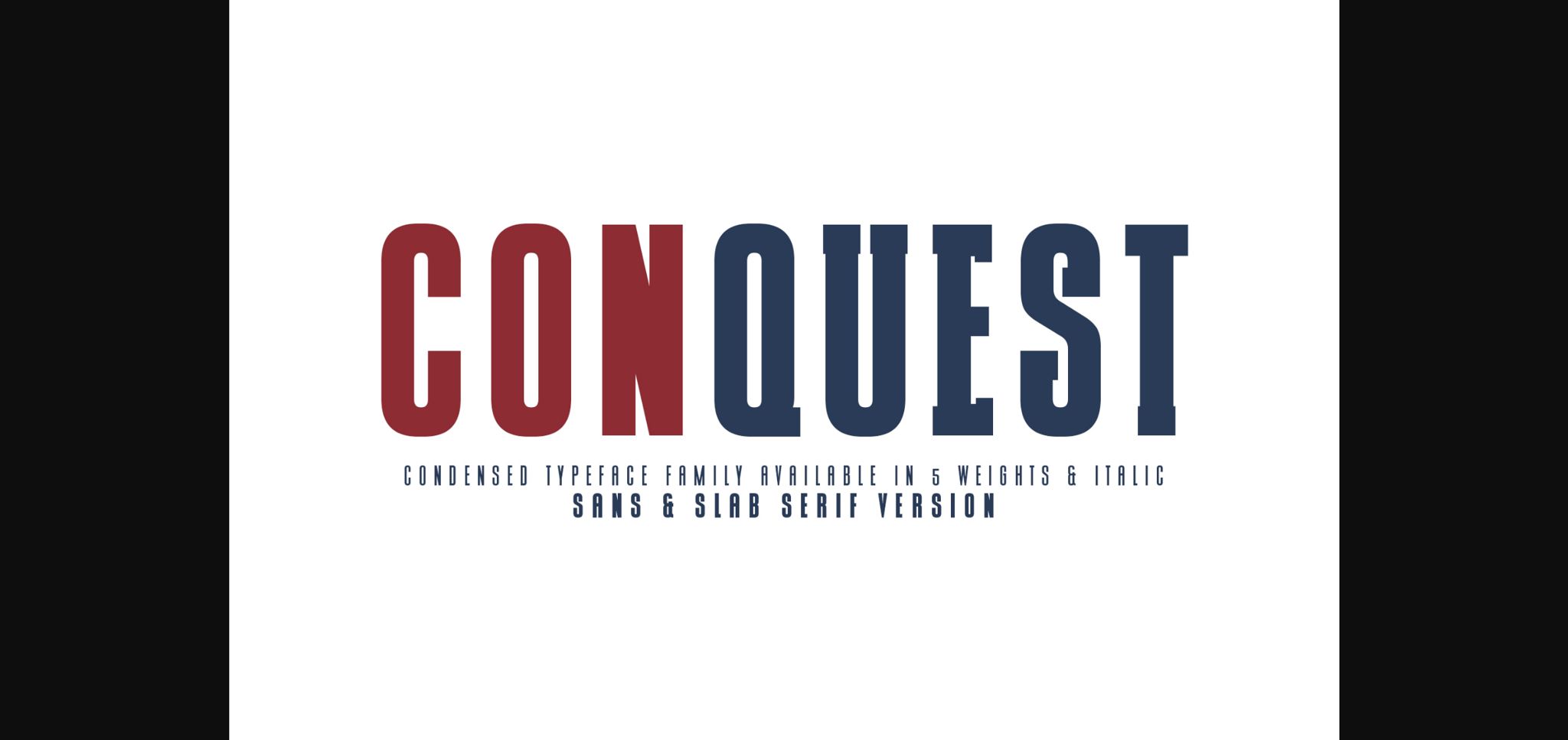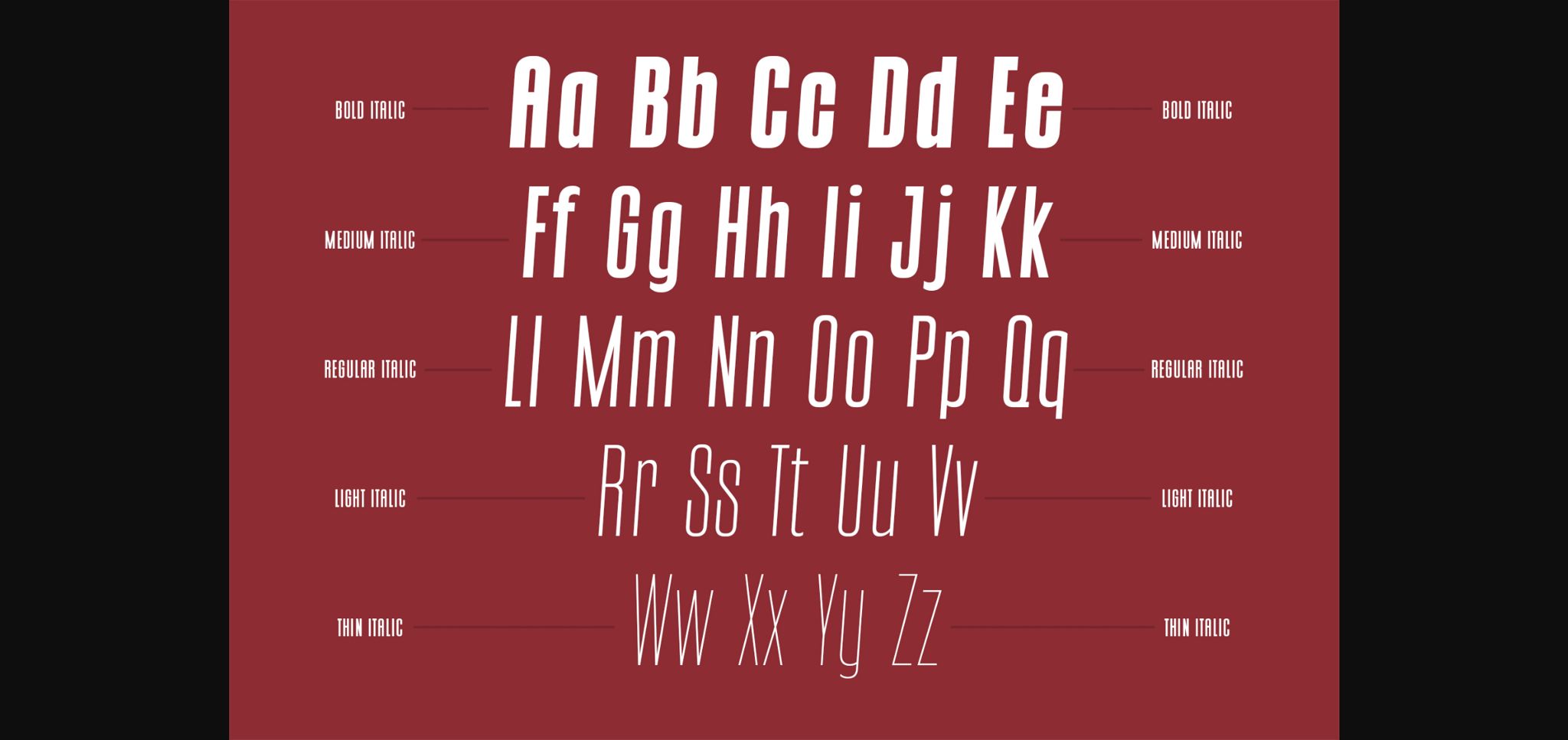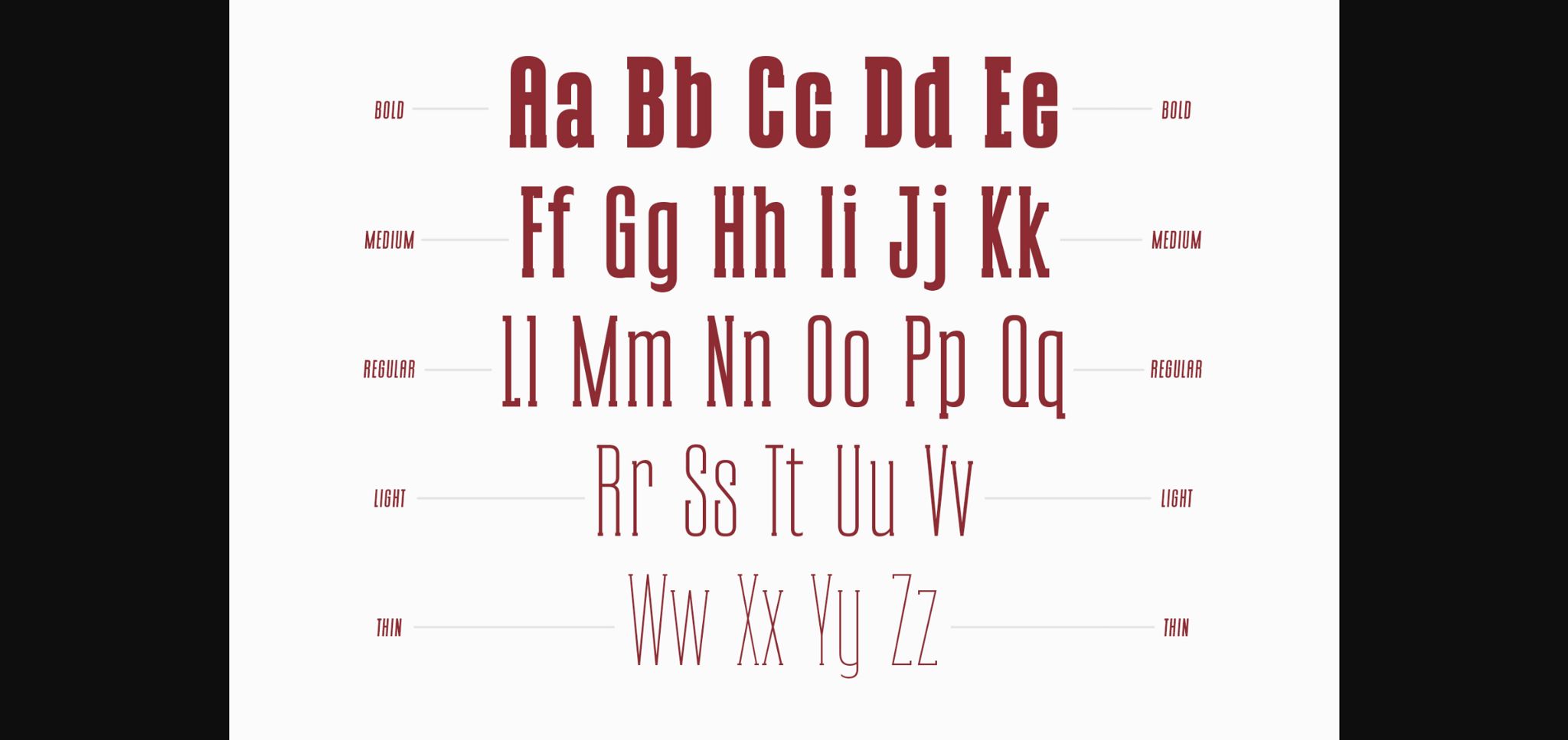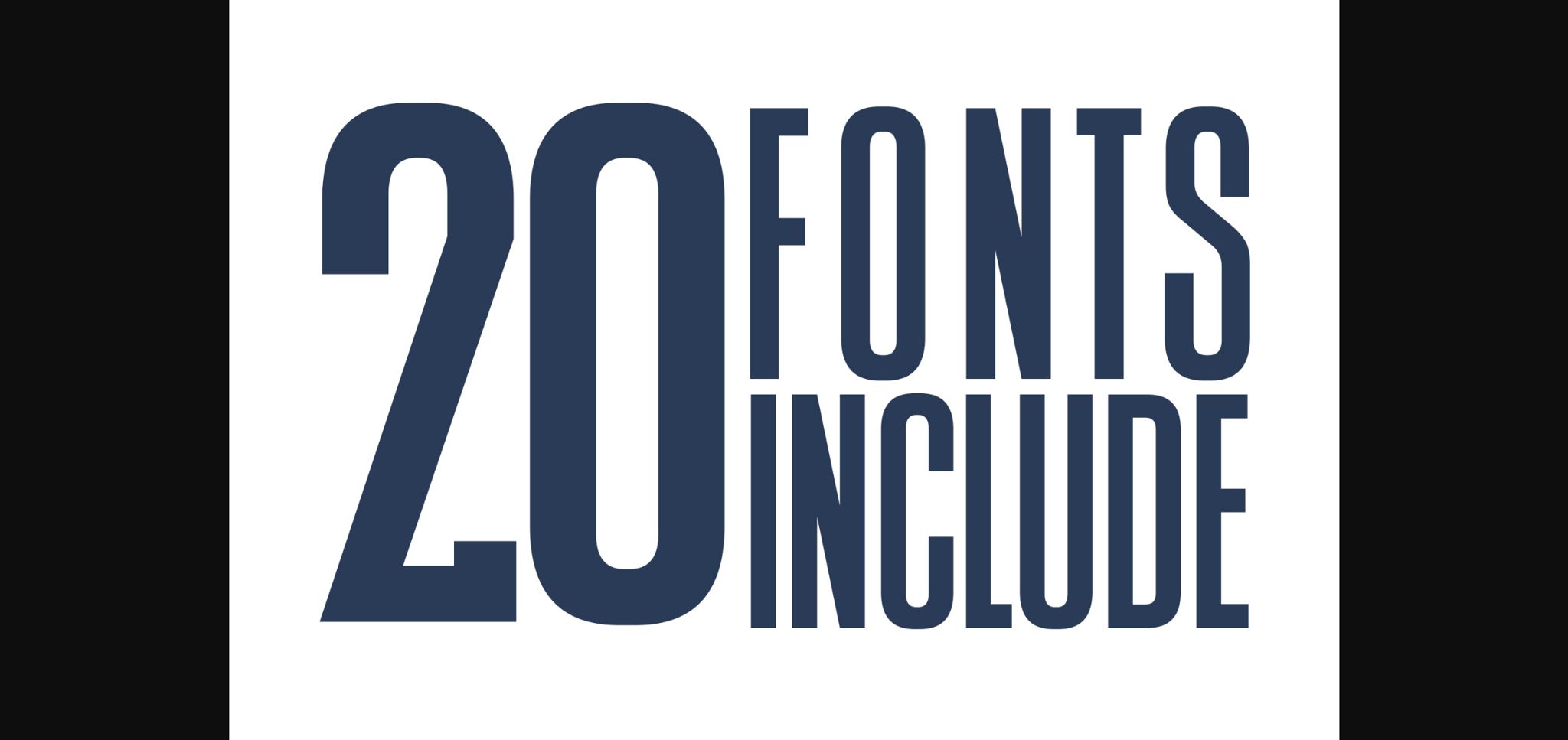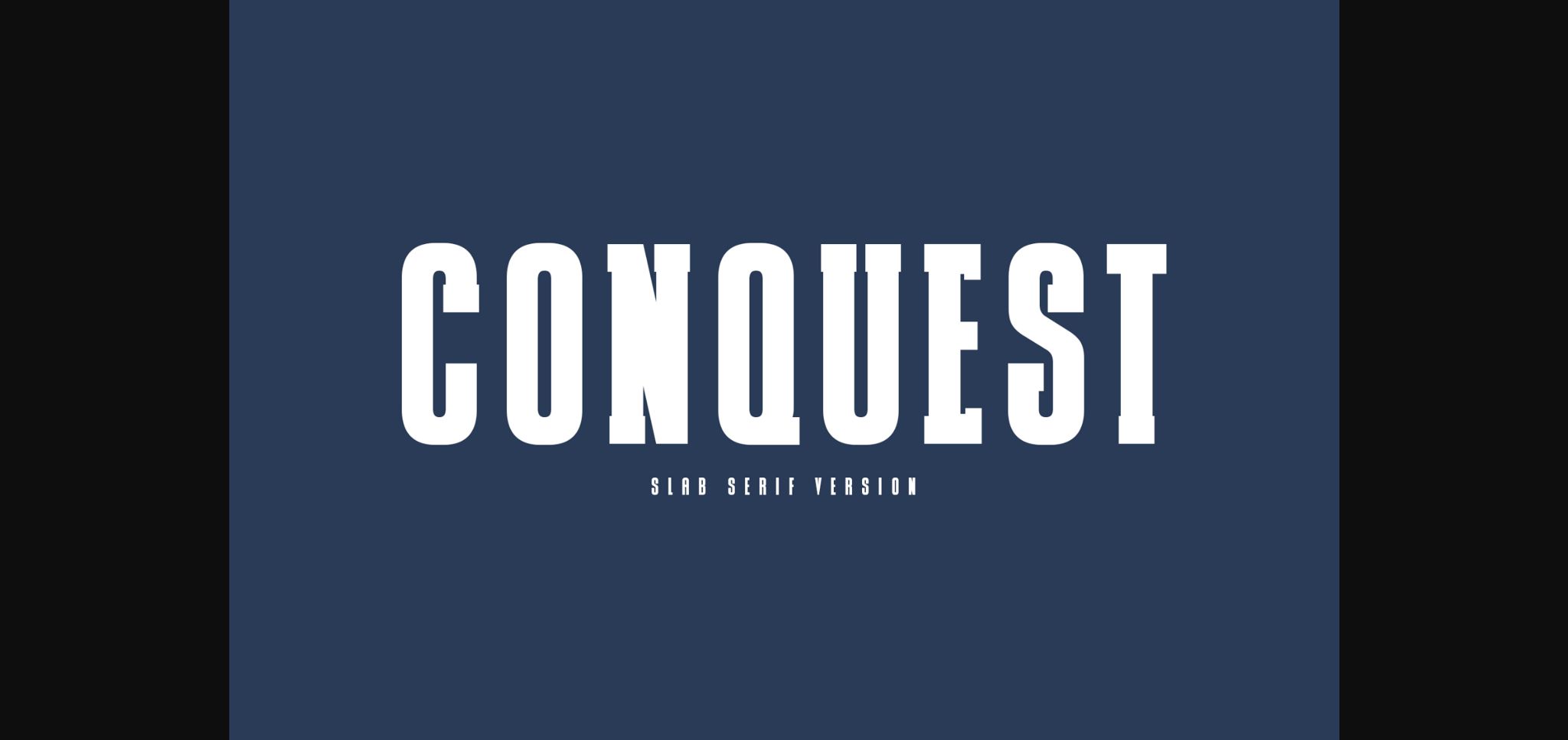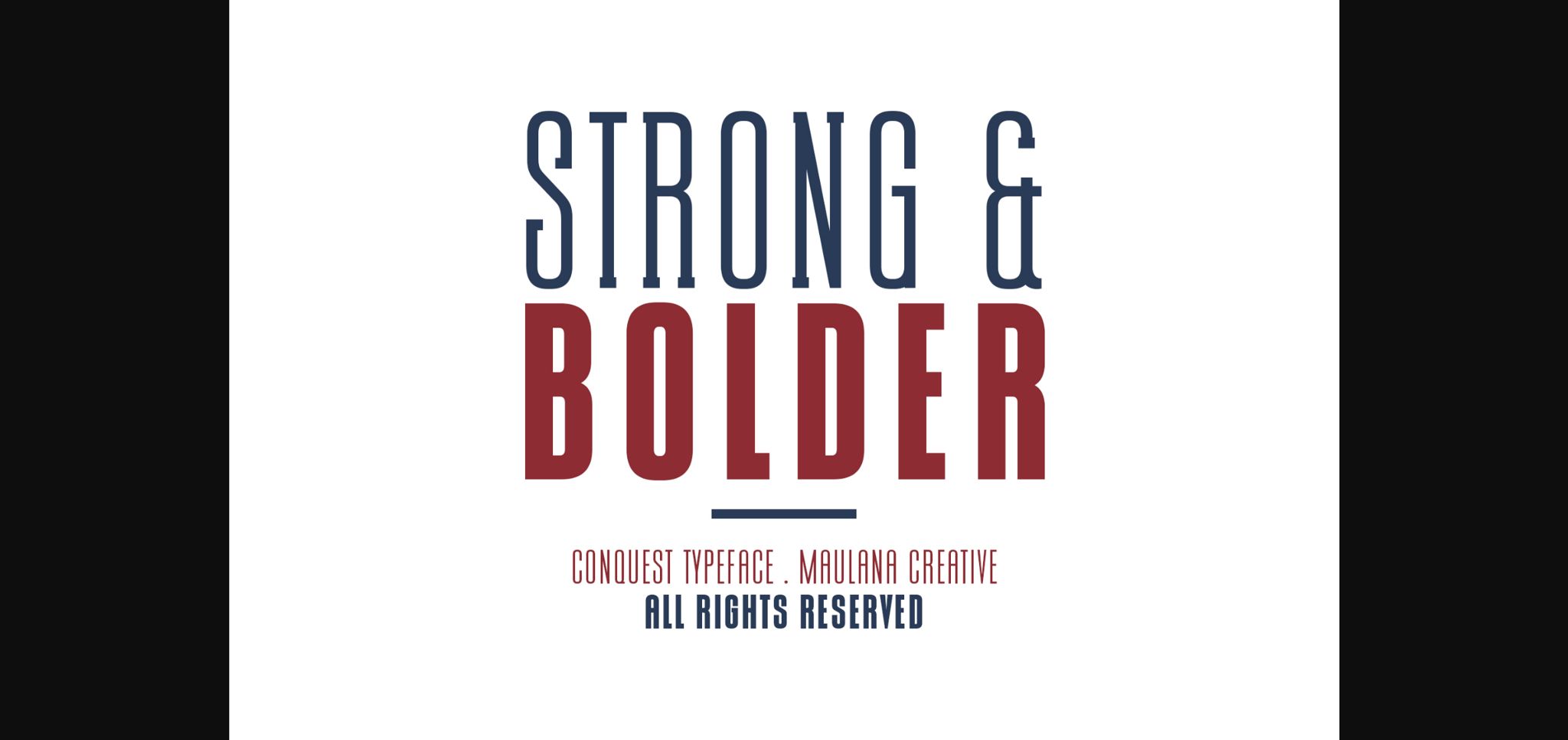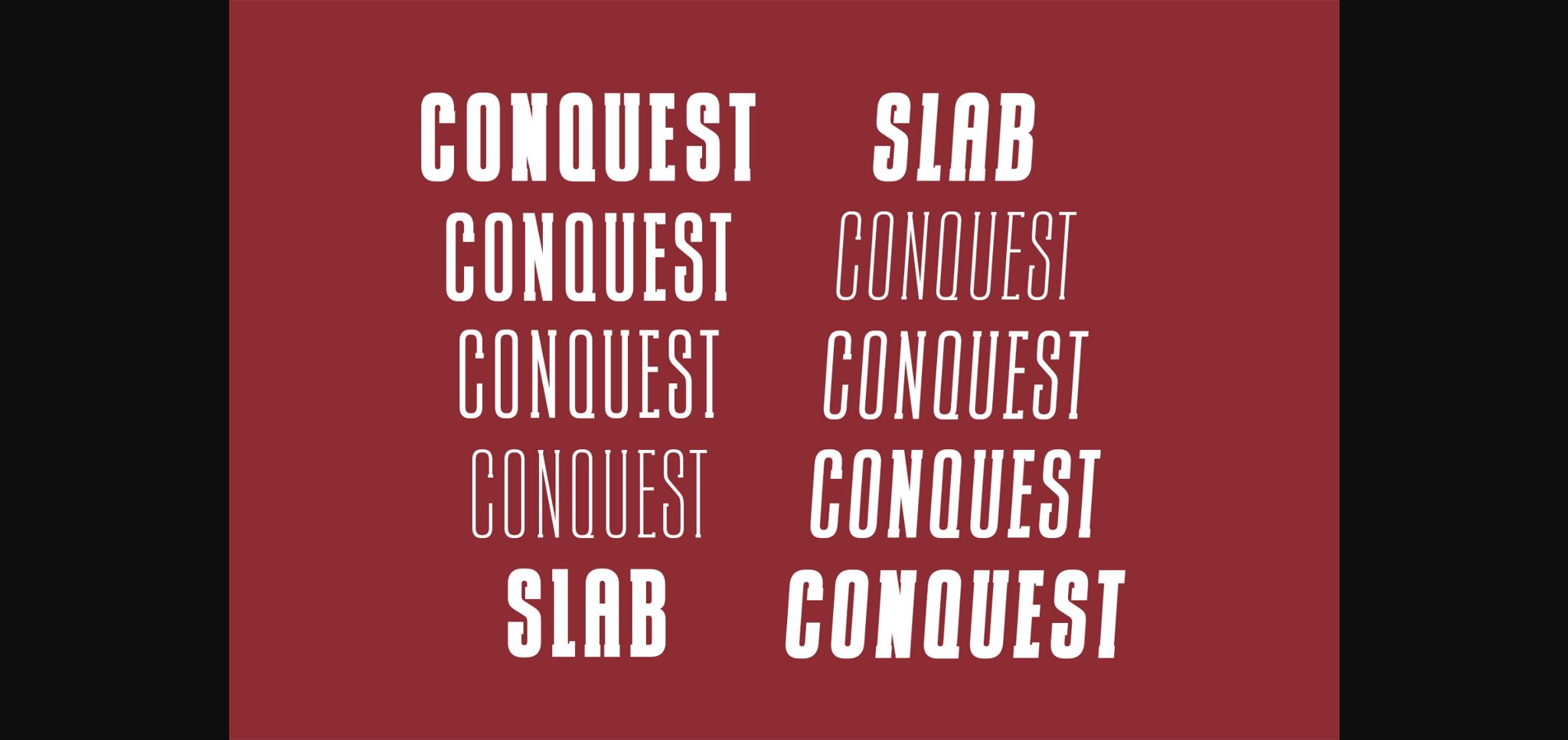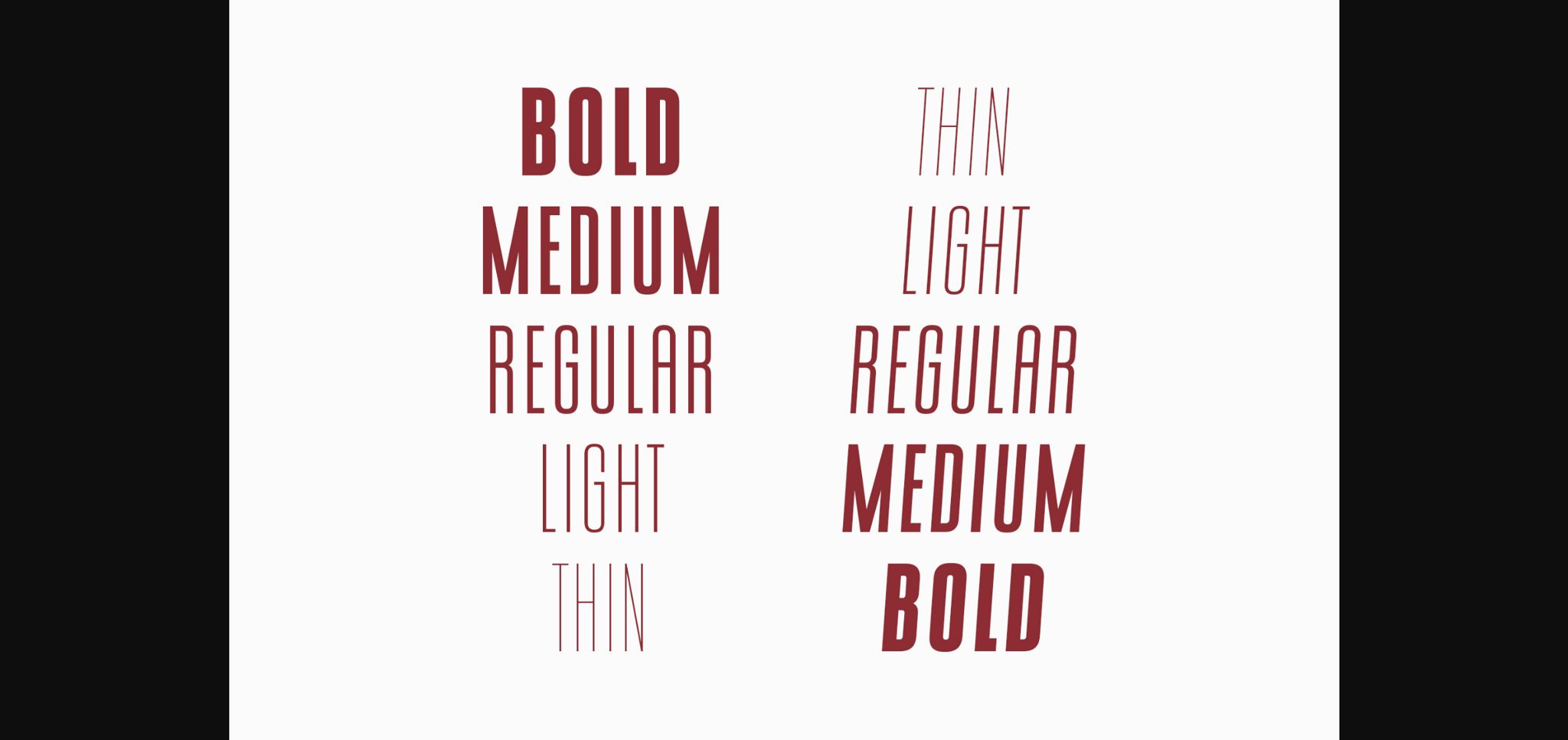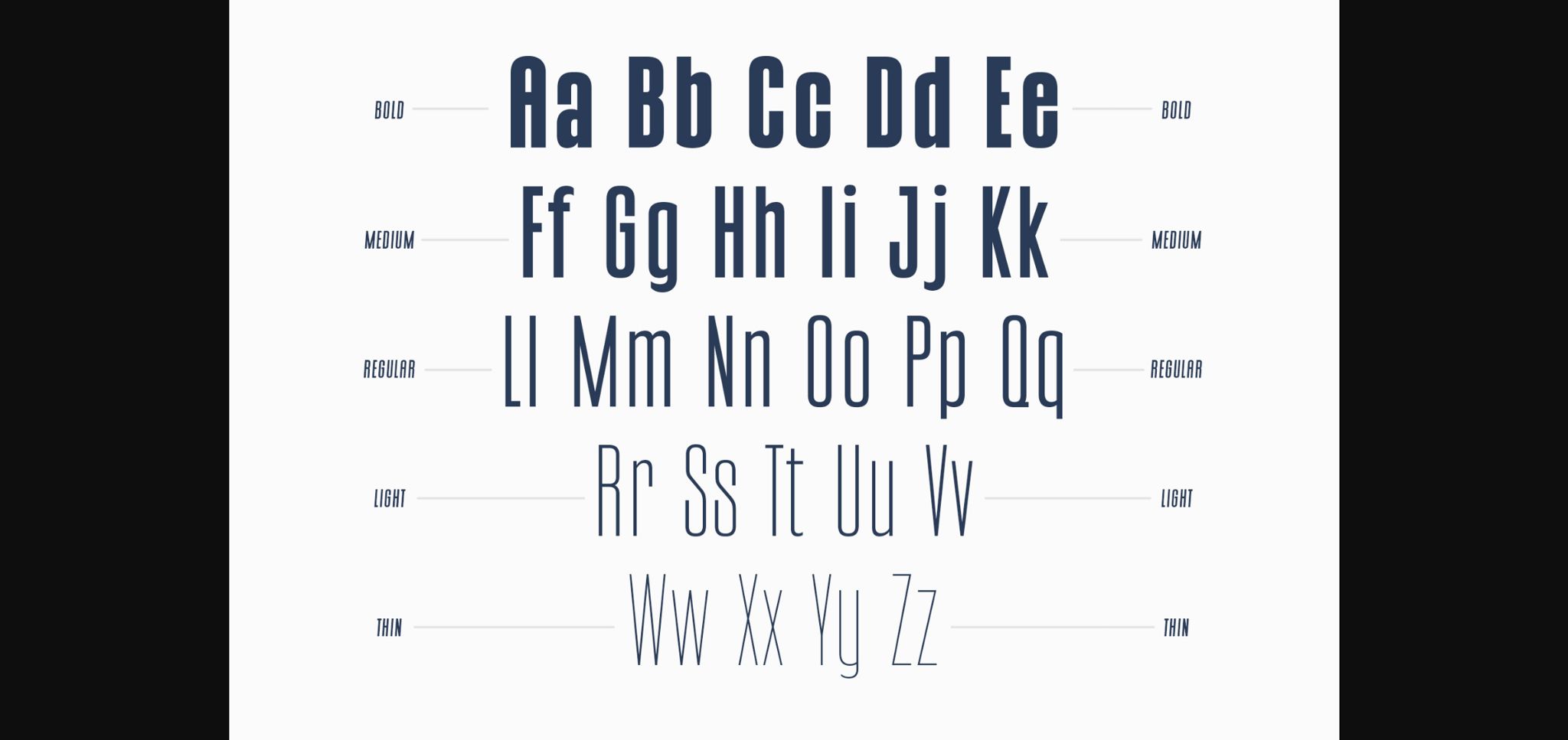
Conquest Sans & Slab Serif Font
Conquest is a Sans & Slab Serif font family that is equipped with many versions to use in your designs. Sans serif fonts are popularly known to have great readability and can be used for the body of the text and are perfectly suited to branding, logos, magazines, films, websites, headlines, titles, captions, games, apps, posters, t-shirts, and much more.